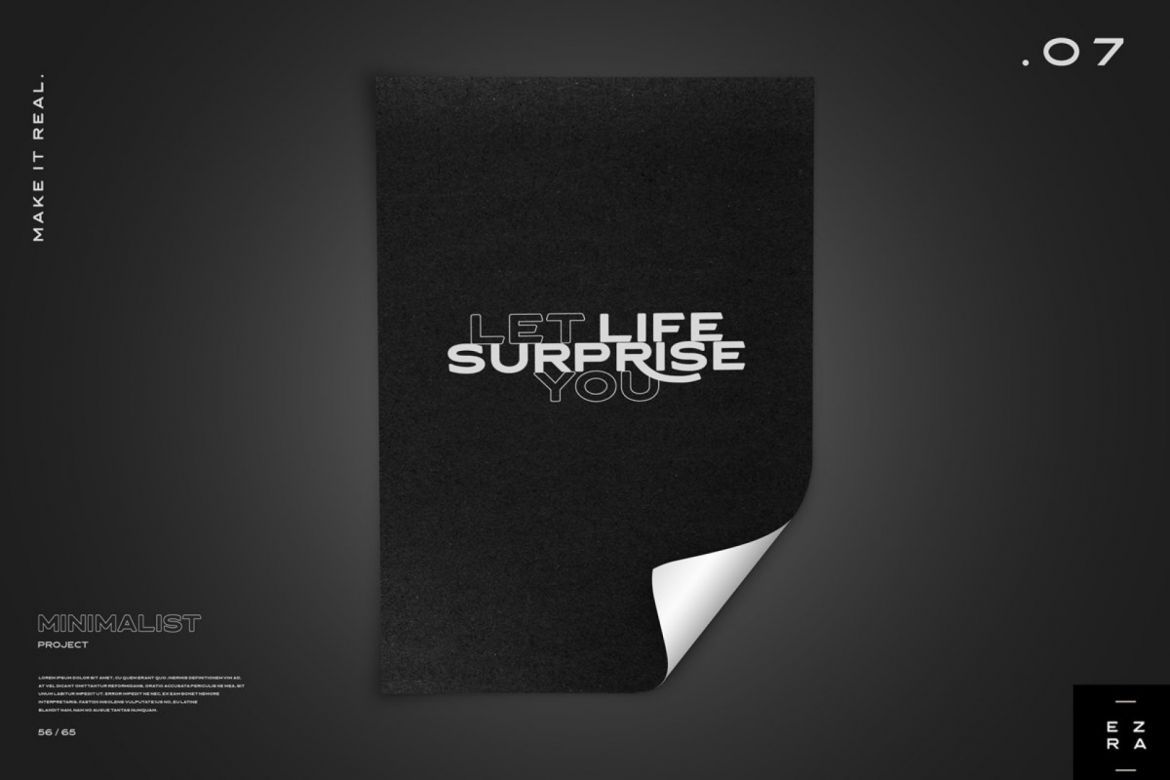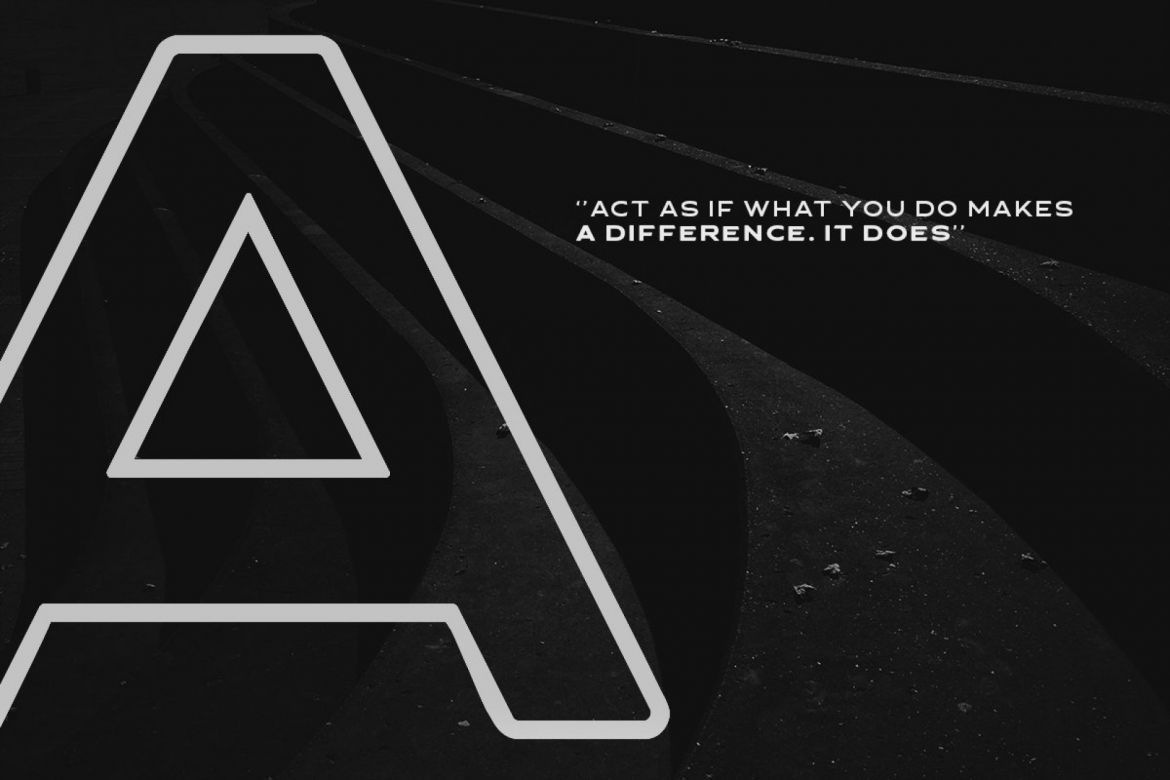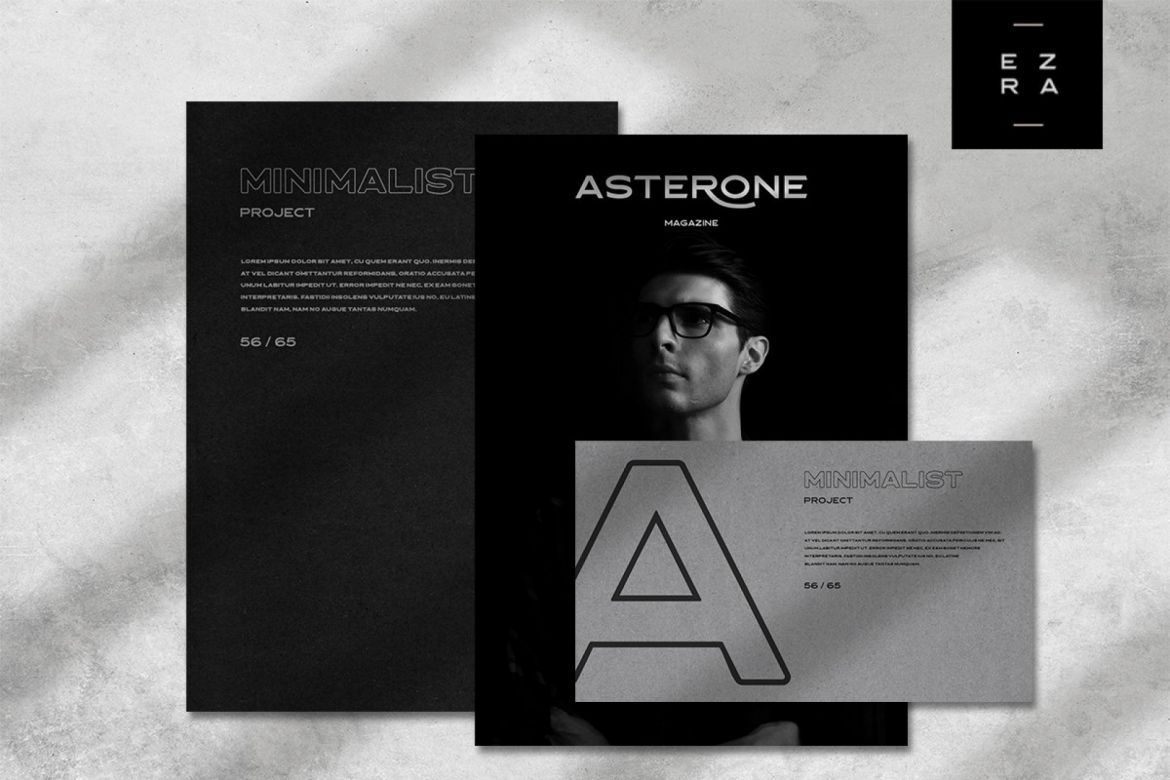
Asterone - Modern Font Family
• introducing, asterone. modern font family
• modern font family. works perfectly for those of you who need fonts for titles, logos, clothing, invitations, branding, packaging, advertisements, etc